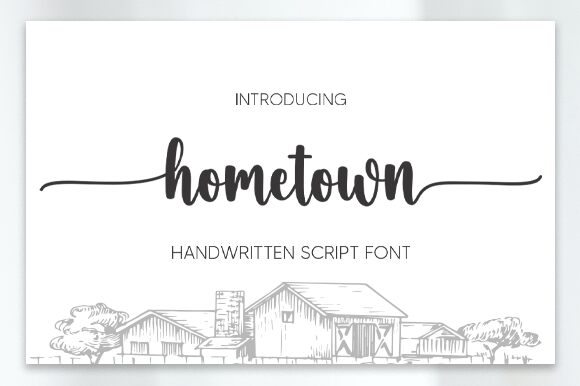
Hometown
Hometown is a narrow, bold script font designed by Aldi Raya Pradipta. This handwritten font is perfect for creating eye-catching logos, posters, titles or headlines that stand out.